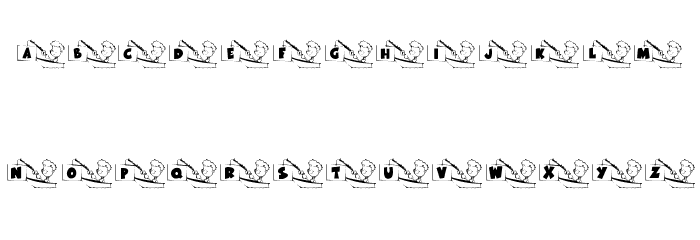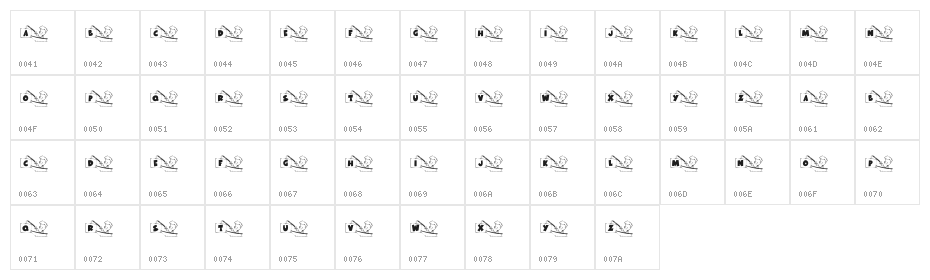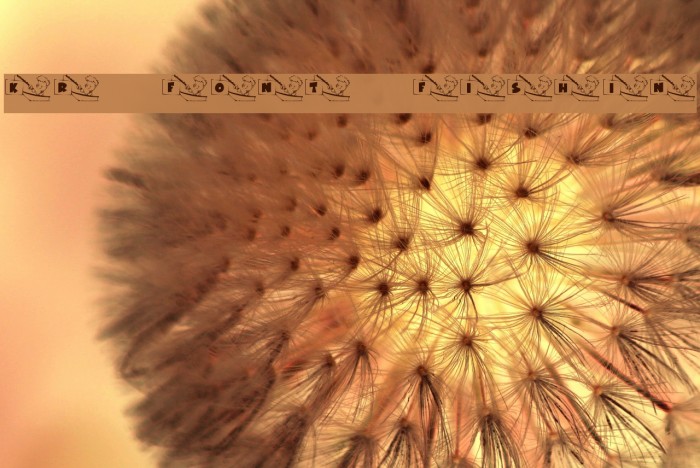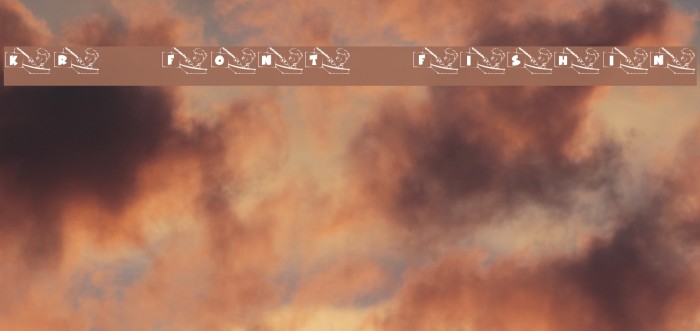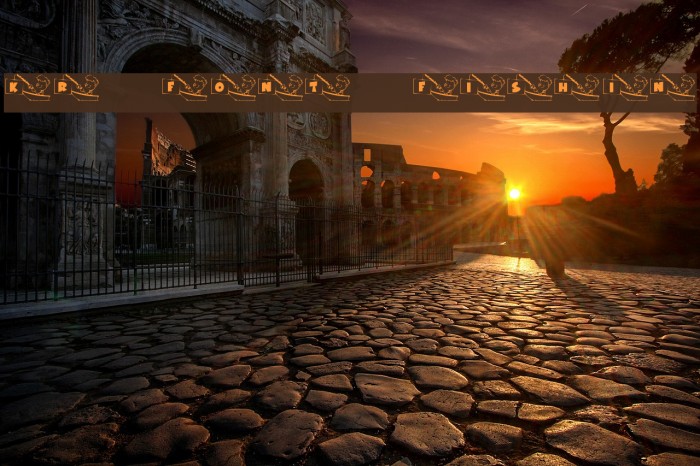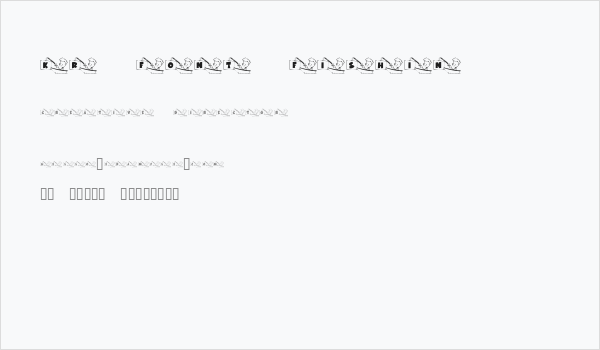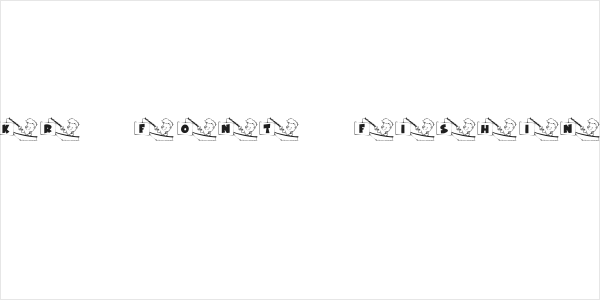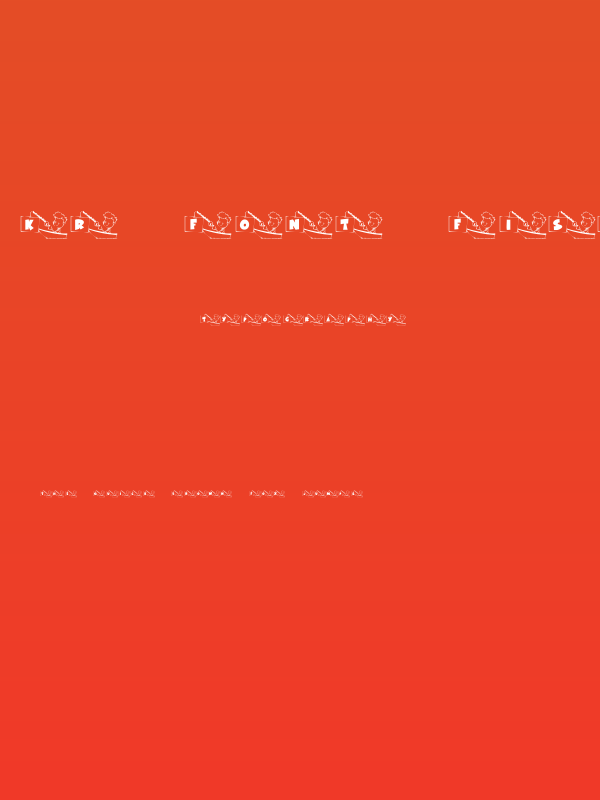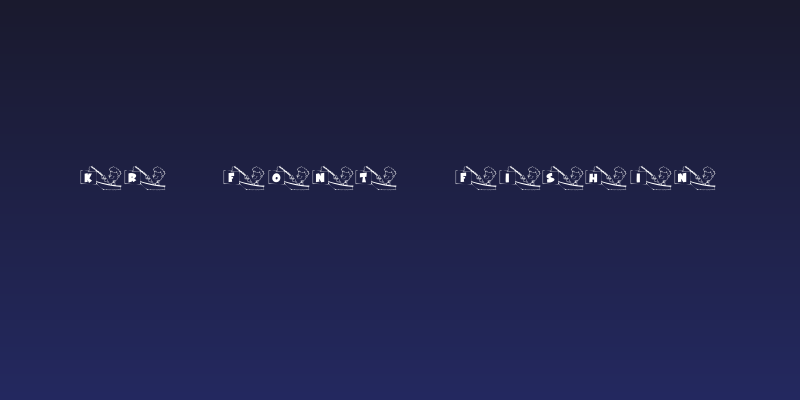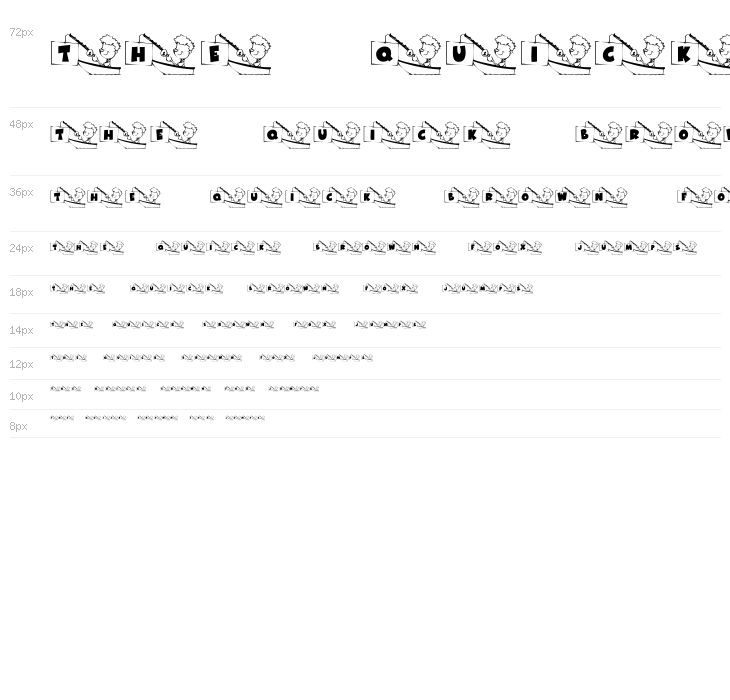
KR Font Fishin Font
KR Font Fishin Description
This decorative font features each letter encapsulated within a playful fishing theme. Each character is integrated with a fishing rod and fish, creating a whimsical and unique appearance. The letters are bold and clear, making them stand out against the intricate fishing design. This font is ideal for projects that require a fun and thematic touch, particularly those related to fishing, outdoor activities, or children's events. The creative design ensures that each letter is easily recognizable while maintaining a consistent theme throughout the alphabet.
| Proposed Projects | Ideal for fishing-themed posters, children's books, outdoor event flyers, and novelty items. |